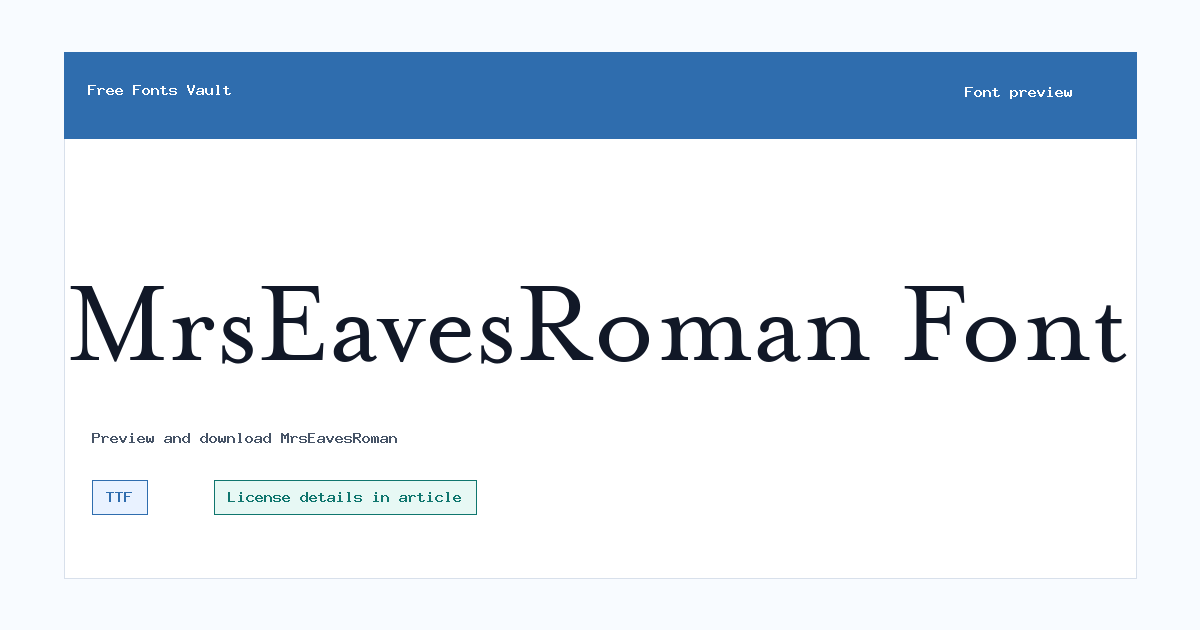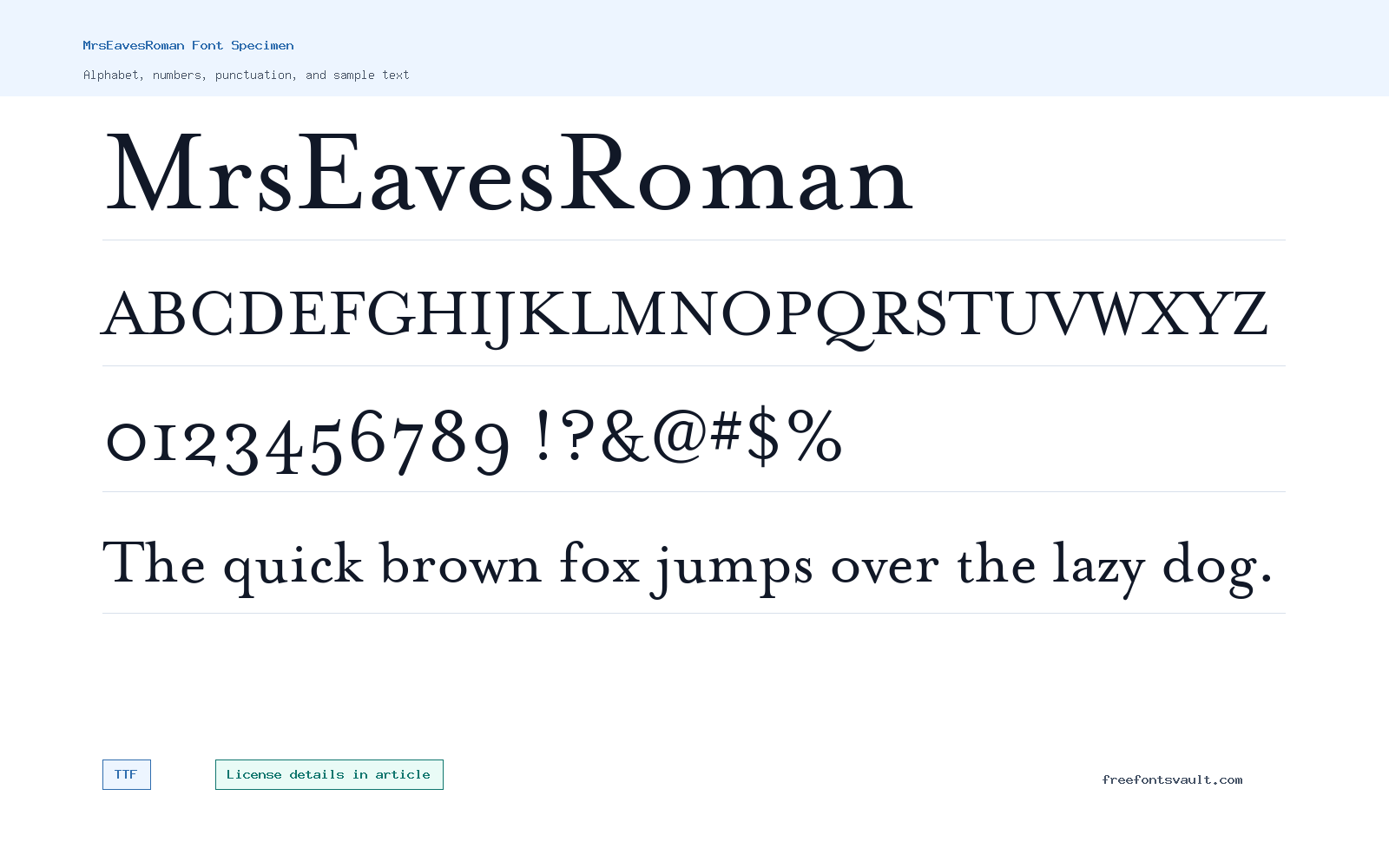
MrsEavesRoman
- Designer Emigre Graphics, Designed by Zuzana Licko
MrsEavesRoman is a TTF serif font file with a classic bookish tone. It is better suited to refined headings, pull quotes, invitations, and elegant text samples than loud display graphics.
The file credit names Emigre Graphics and designer Zuzana Licko, which places the font in a more formal serif direction. In use, treat it as a graceful Roman style: preview title case, names, editorial headlines, short paragraphs, and quotation text. The shapes are likely to show their character best when the layout gives them enough line height and does not crowd the letters.
A serif like MrsEavesRoman can feel elegant without needing heavy effects. Try it in black on a warm paper tone, in a quiet editorial layout, or as a large quote with generous margins. Avoid crowding it with decorative scripts or very condensed display fonts; the Roman style usually works best when the surrounding design is restrained.
- Roman style suitable for elegant text settings
- Elegant headings, quote cards, and invitations
- Editorial-style titles and refined mockups
- Short reading samples where a serif voice fits
What designs suit MrsEavesRoman?
It suits elegant headings, invitations, editorial titles, quote graphics, and refined text mockups.